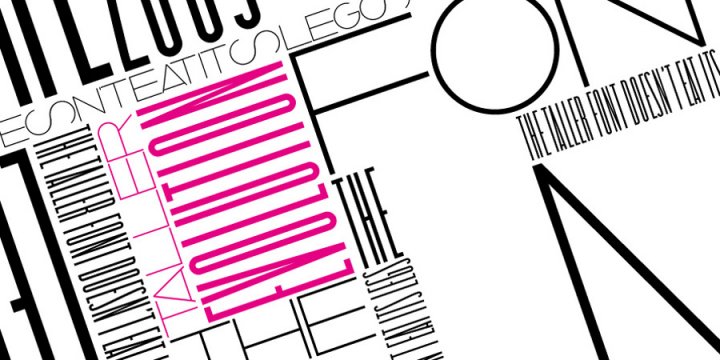
Font name: | Taller Evolution |
For anybody with a love for barcodes or a nineties nostalgia comes a tall, decorative, sans serif font designed to create text patterns with a strong vertical emphasis. For commercial licence please visit our site: http://www.zetafonts.com/taller" target="_blank">more info and sample |